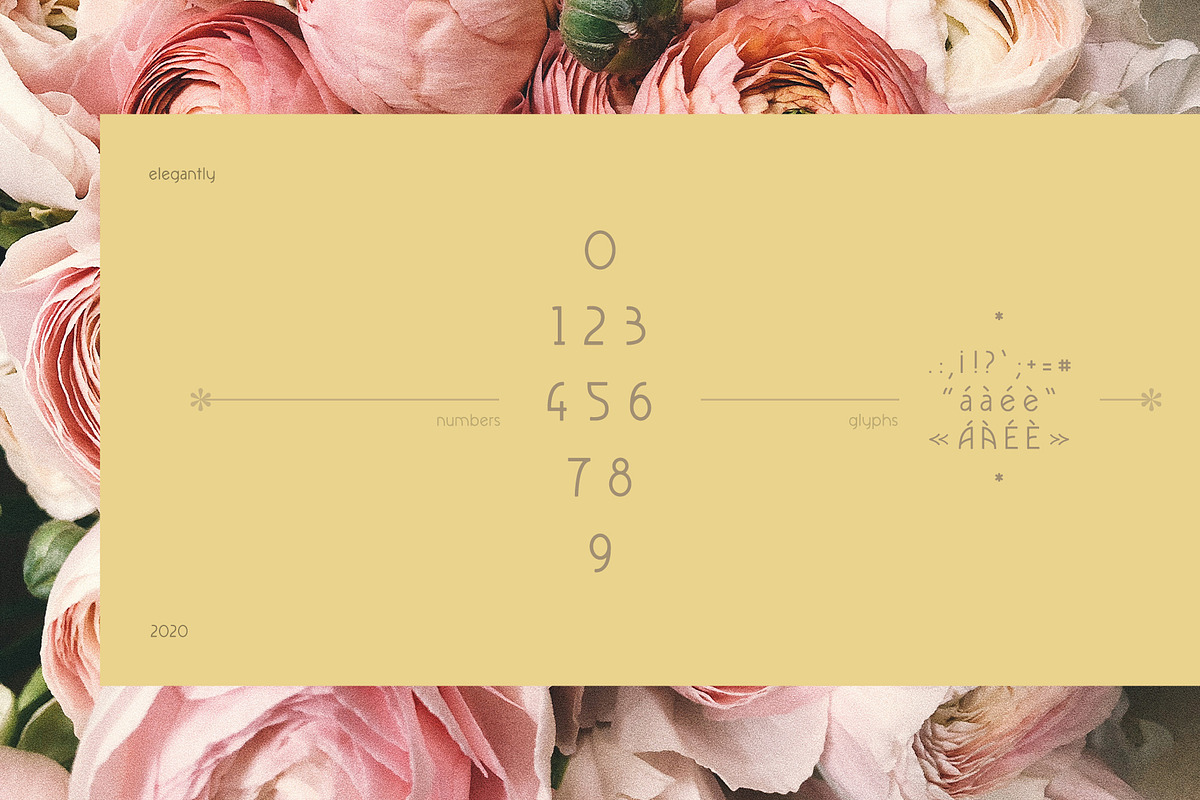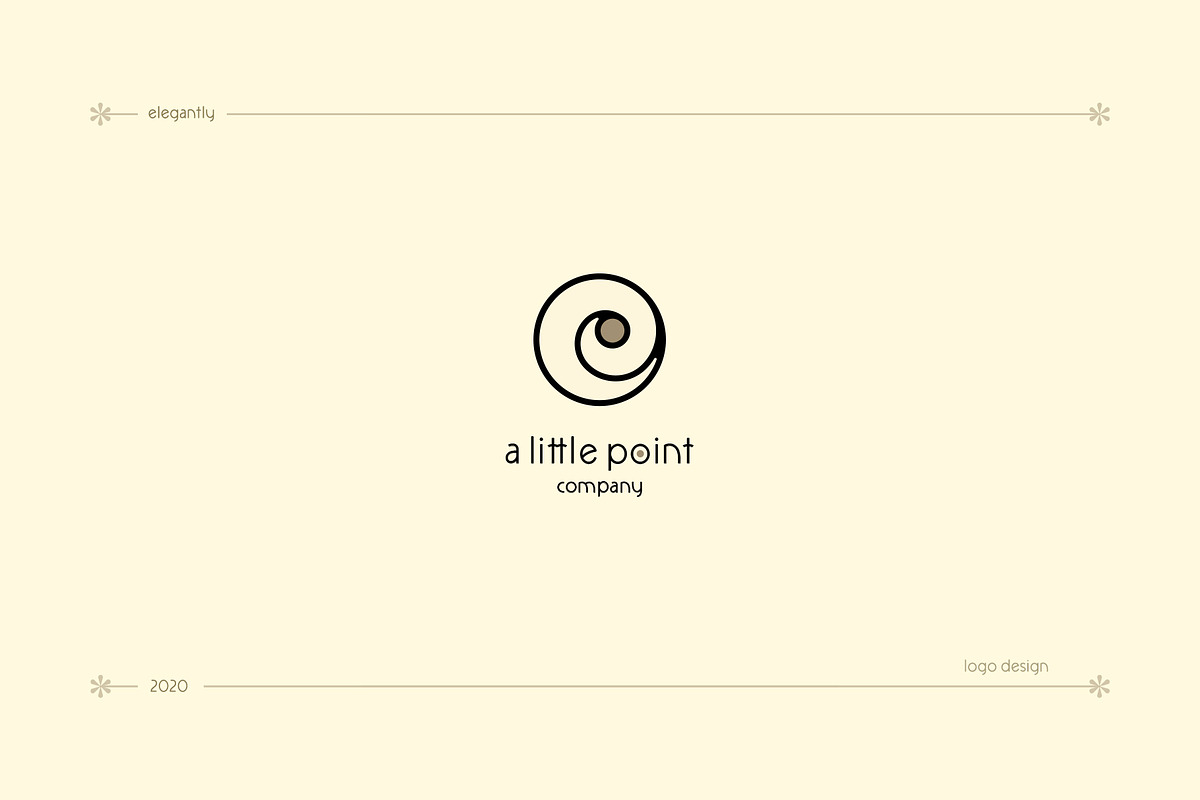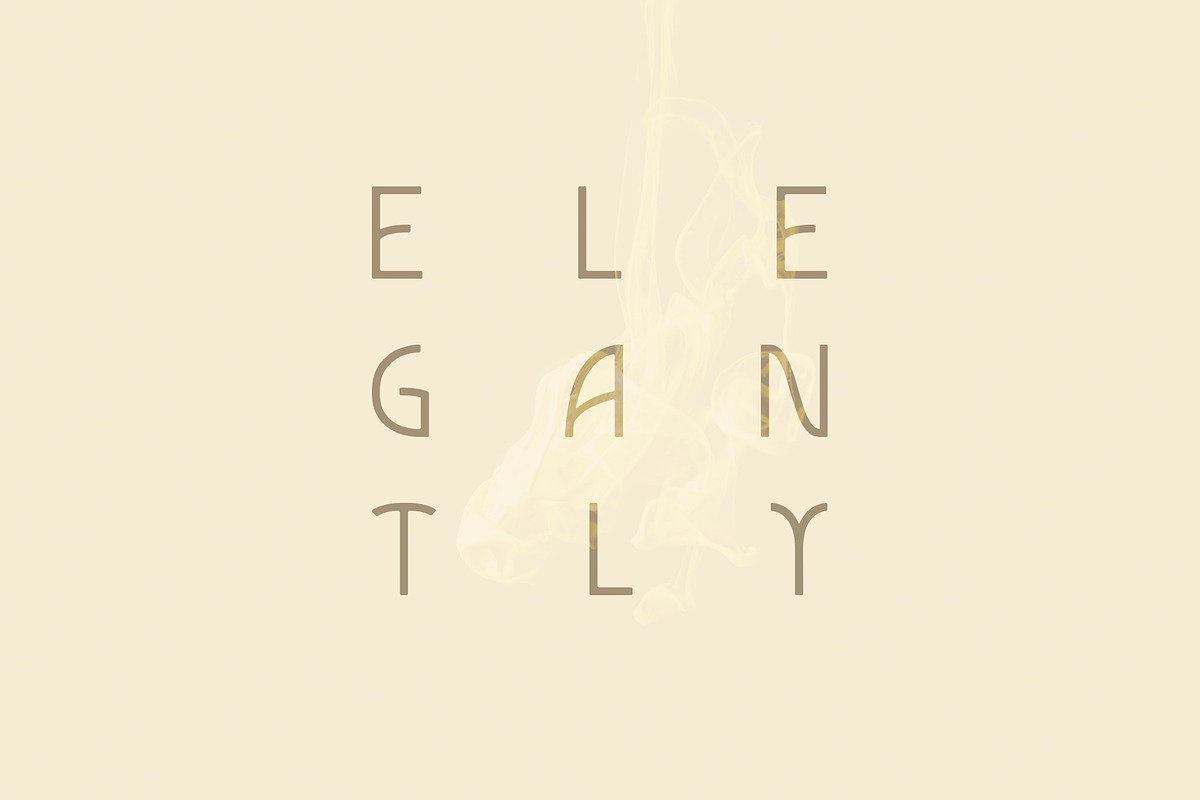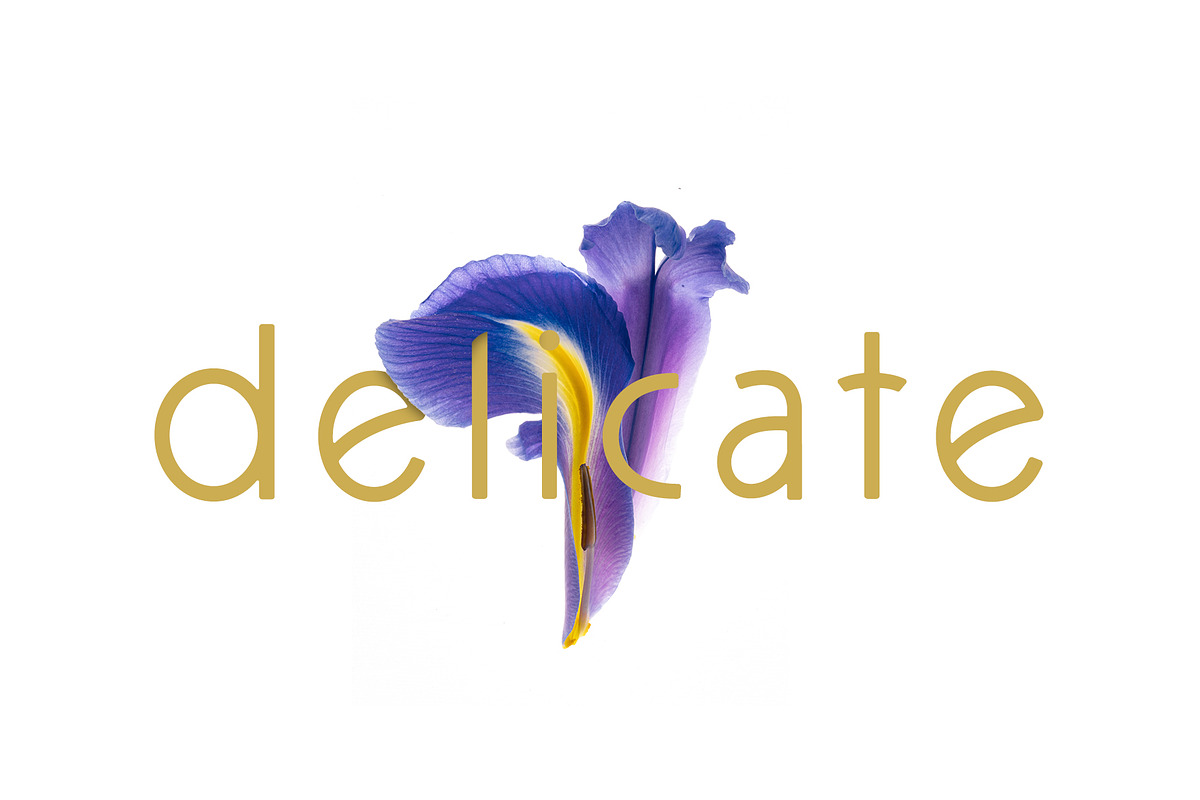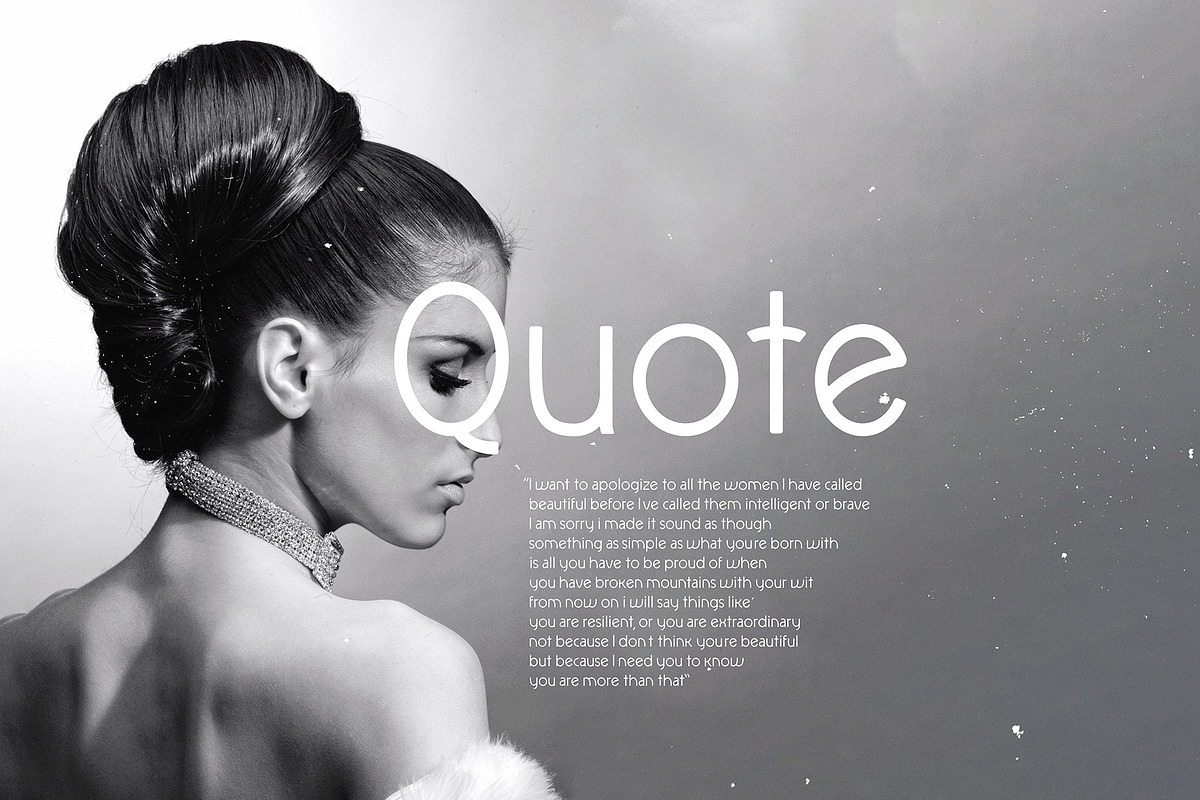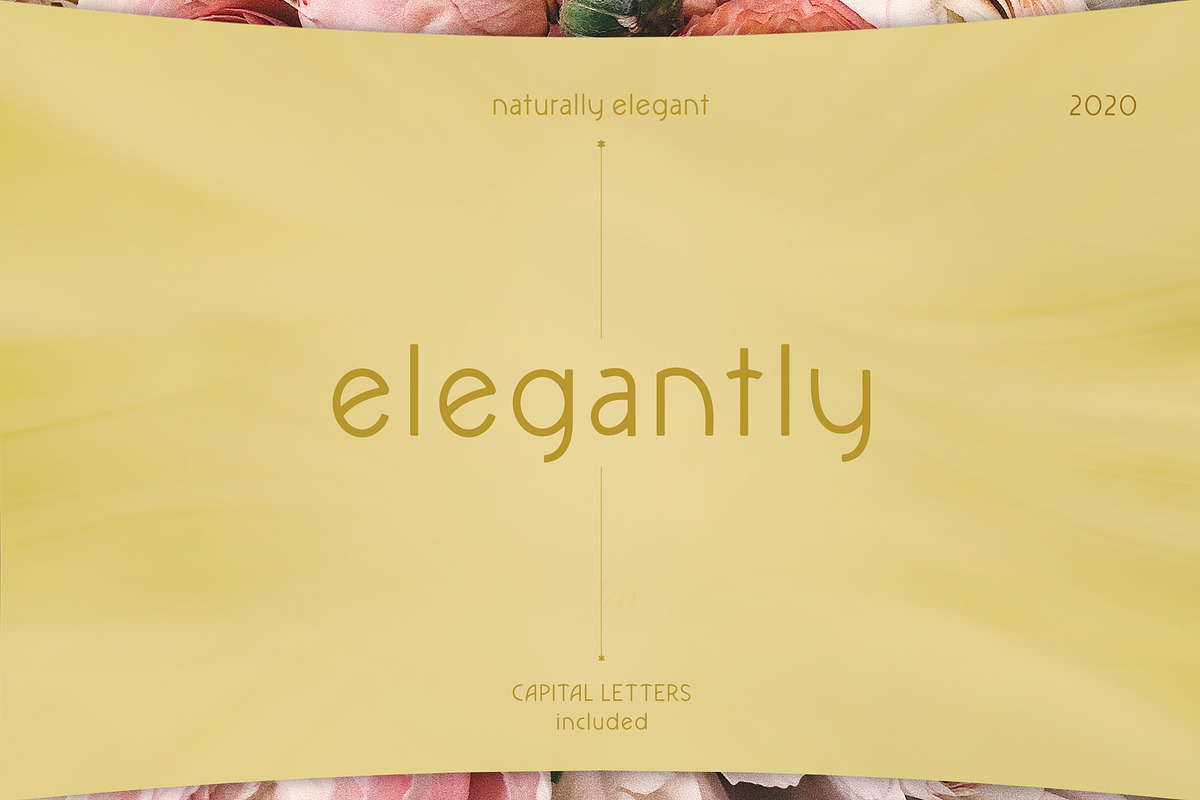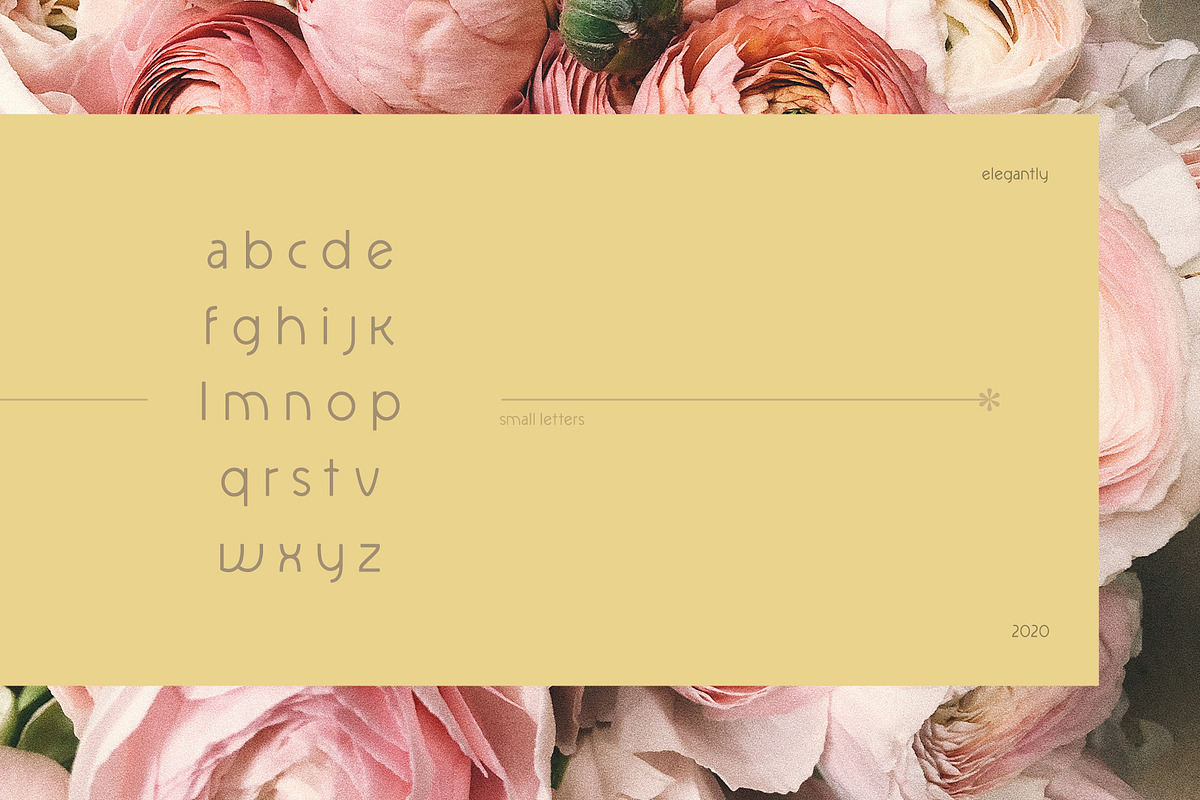
Elegantly - sans elegant font
ELEGANTLY is a sans serif elegant font
ELEGANTLY is a sans serif elegant font inspired by an old fashion kind of elegance and curves of Art Nouveau. Perfect to add a feminine touch to your design. Born to be a capital letters only perfect for headlines and title I developed a classy sans serif small letters with geometric curve perfect for small captions and phrases.
Elegantly can be used for logo, brand identity, caption, business card, cosmetic packaging products, headline, web post and social. You can show personality an elegance without the use of non always easy readable script.
Letters are unique in their styles designed to share a feeling of classic beauty in a modern sans serif way.
The font is projected to fit with creativity about: cosmetic, femininity, elegance, fashion, romantic mood.
.:,¡!?';+=# ù “áàé蔫ÁÀÉÈ»